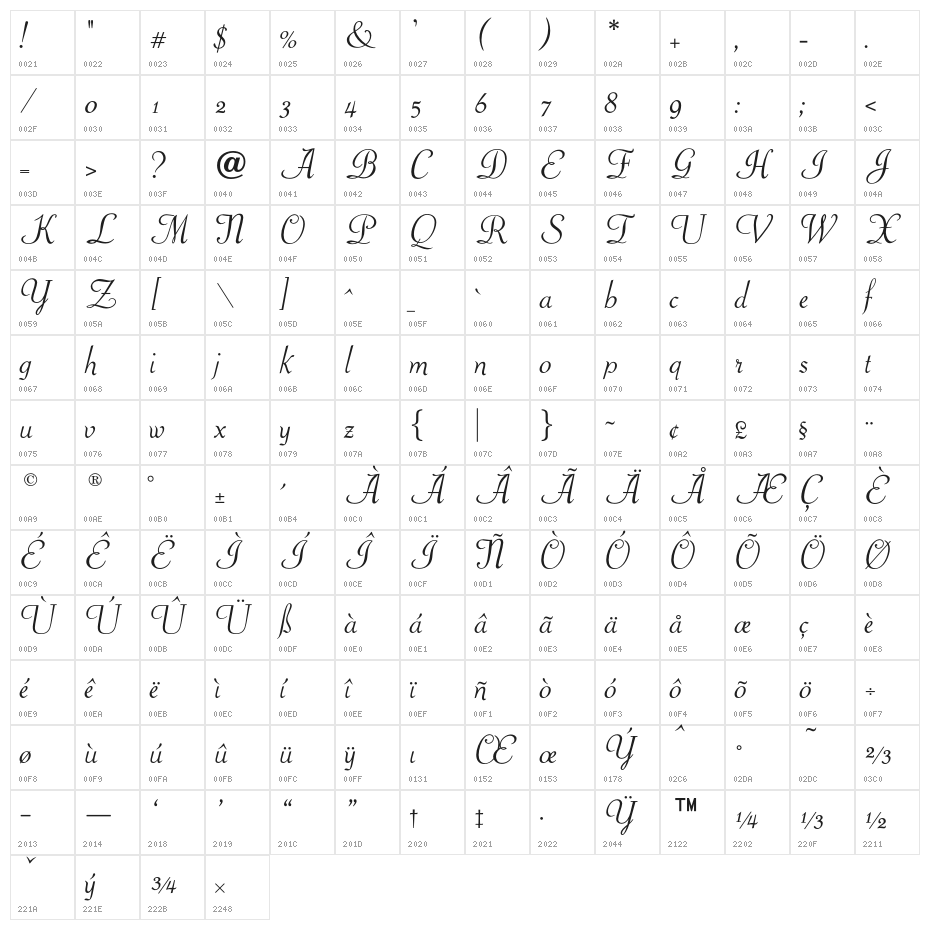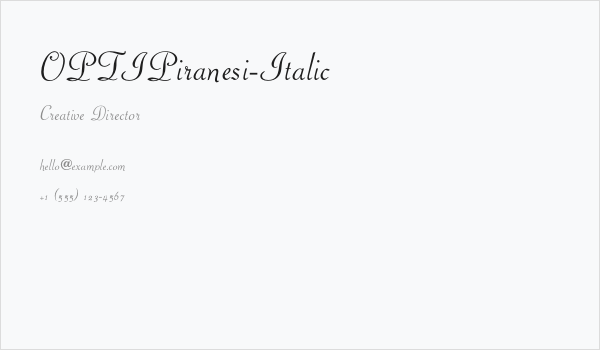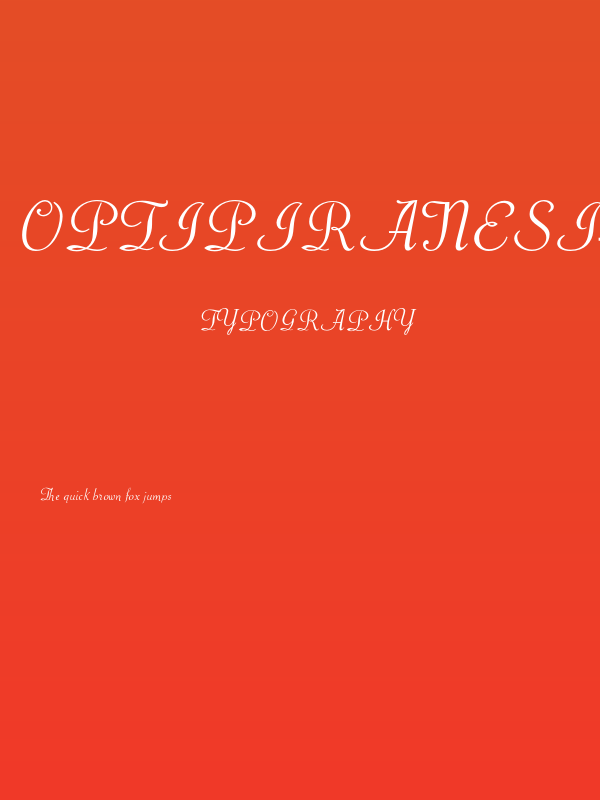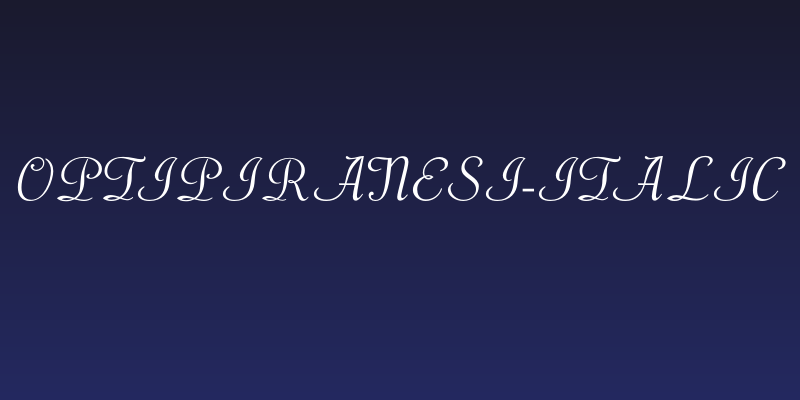
OPTIPiranesi-Italic Font
OPTIPiranesi-Italic Description
This elegant font features a sophisticated italic style with flowing, cursive-like characters. The uppercase letters exhibit a graceful, sweeping form, while the lowercase letters maintain a consistent, fluid motion. The numerals are distinct and slightly stylized, complementing the overall aesthetic. Special characters are designed with a similar flair, adding to the font's cohesive appearance. The strokes are moderately thick, providing a balanced contrast that enhances readability while maintaining an artistic touch.